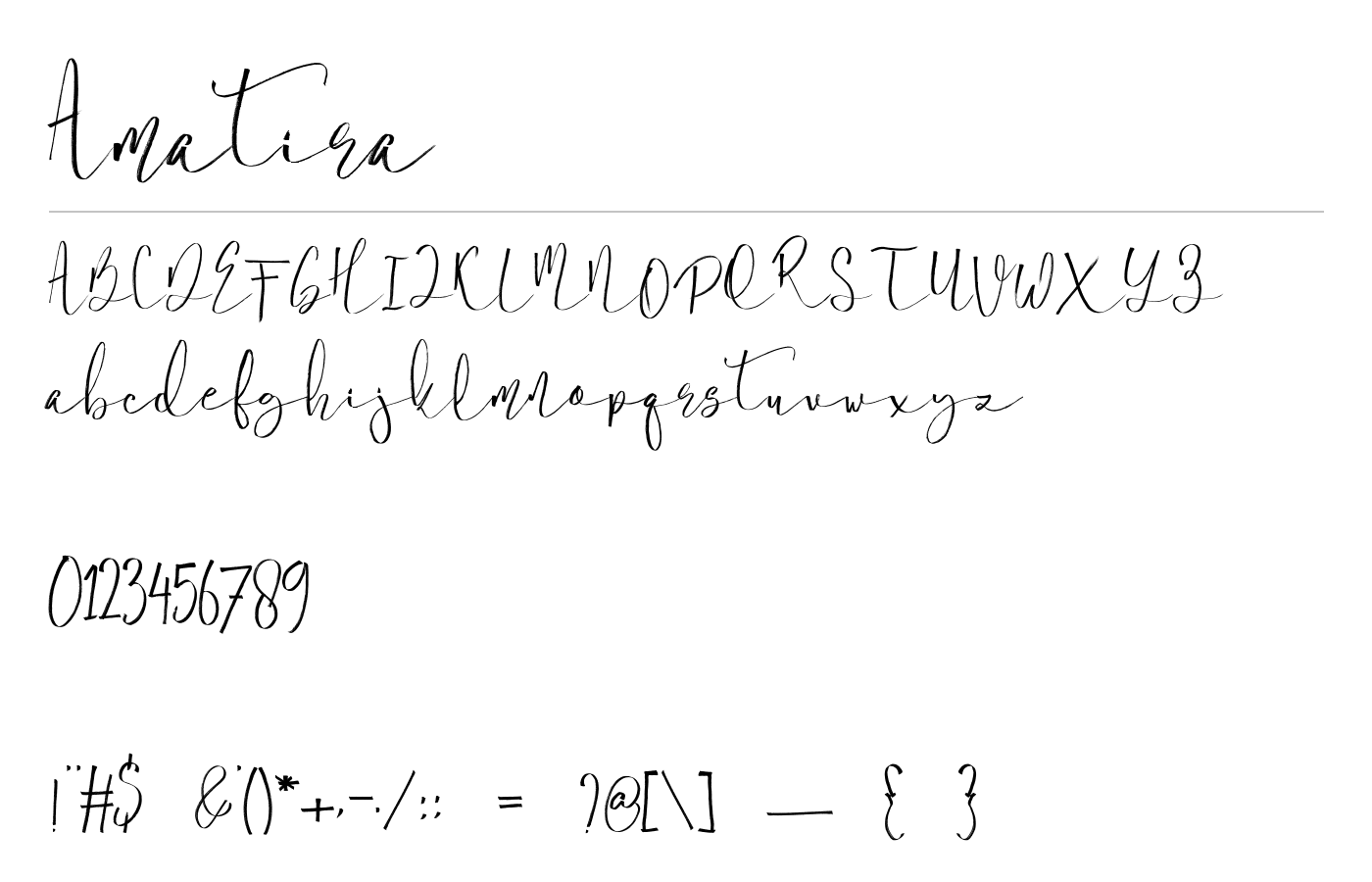
Amatira is a delicate, handwritten script font with a light weight and elegant, flowing strokes that evoke a personal and artistic feel. Its tall, narrow letterforms and subtle variations in line thickness create a graceful and slightly whimsical style, perfect for adding a touch of sophistication and charm to invitations, branding, and creative projects. This font works best in designs that seek a refined yet approachable look, especially in fashion, lifestyle, or boutique contexts.
Amatira Font
About Amatira Font